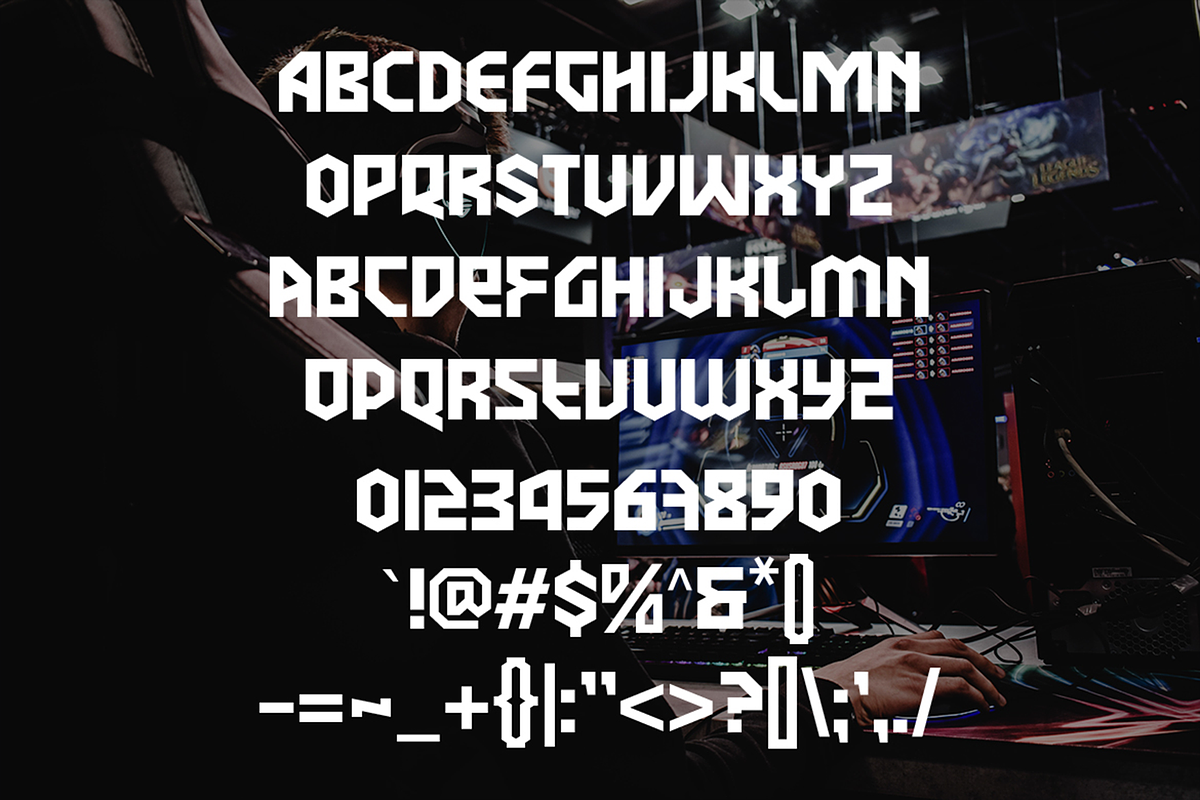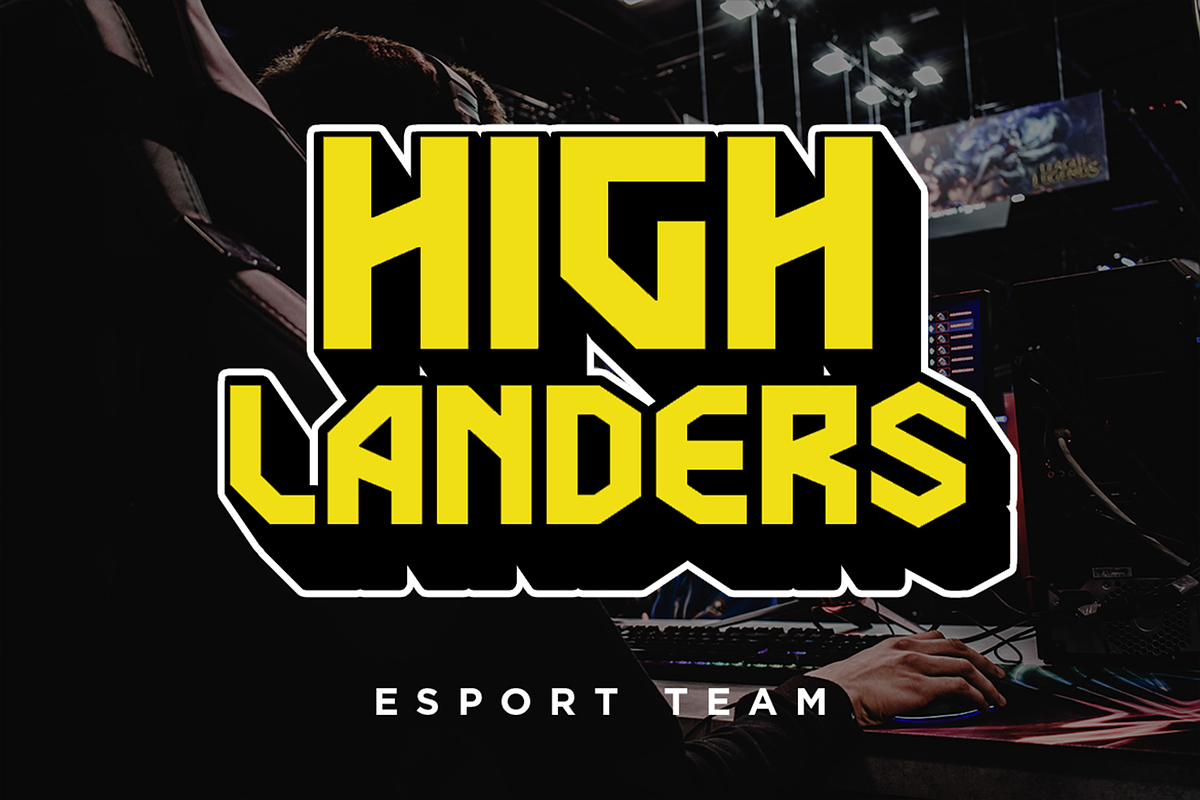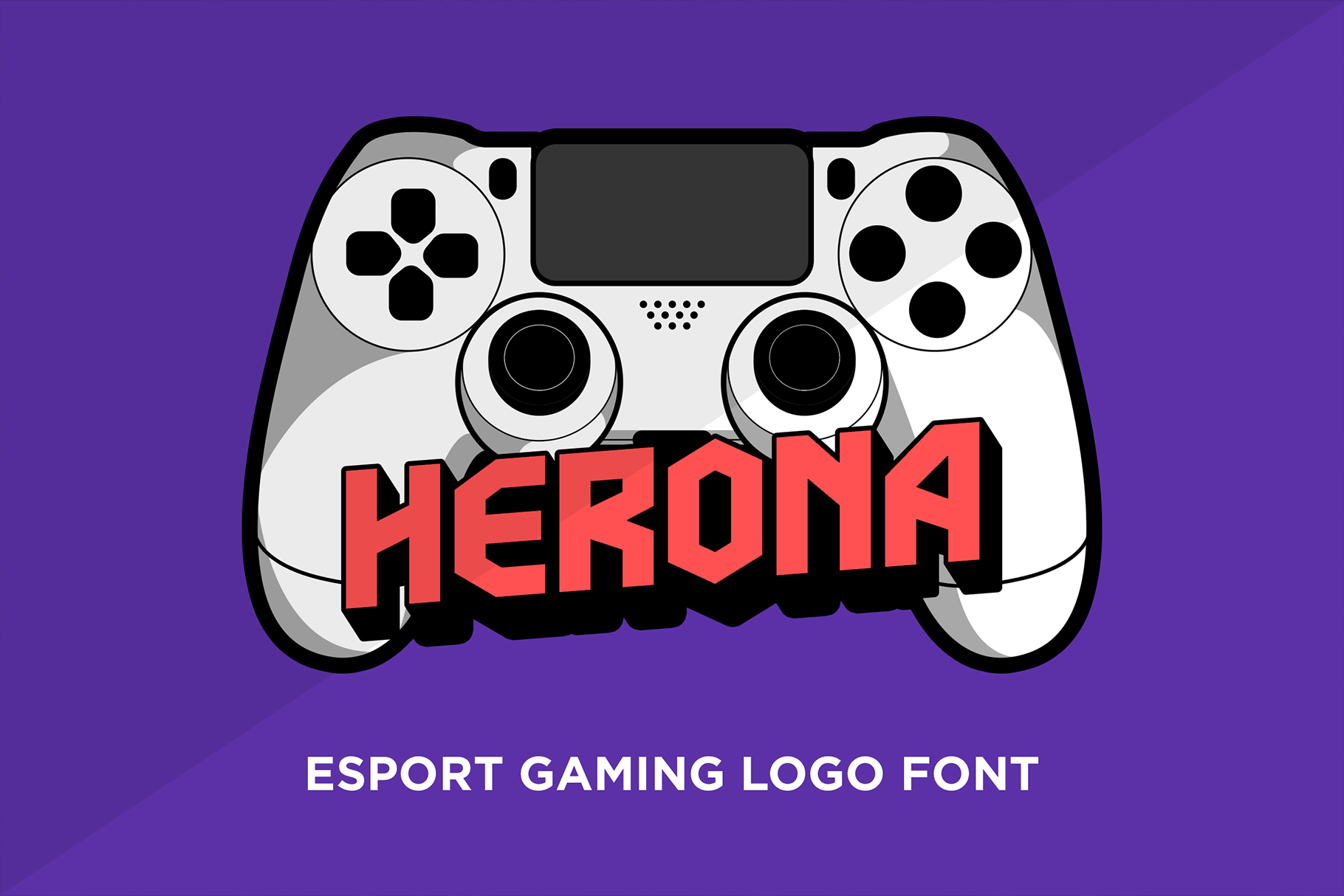
Herona – Esport Logo Fonts
Herona is specifically crafted based on the trending esports and gaming logo concept. Your easiest one way to go for your gaming branding, esports logo, streaming overlay design, gaming logo, etc.
Some tips: play with outline and shadow to give you the bold effect in your design.